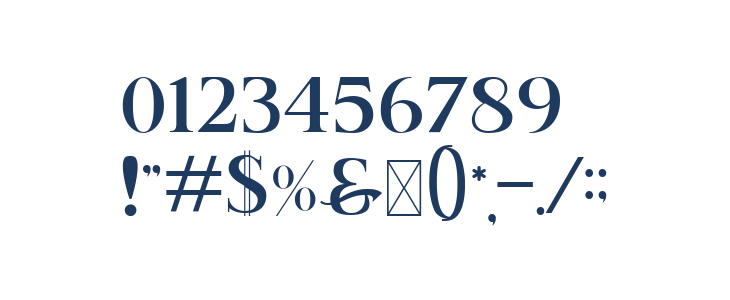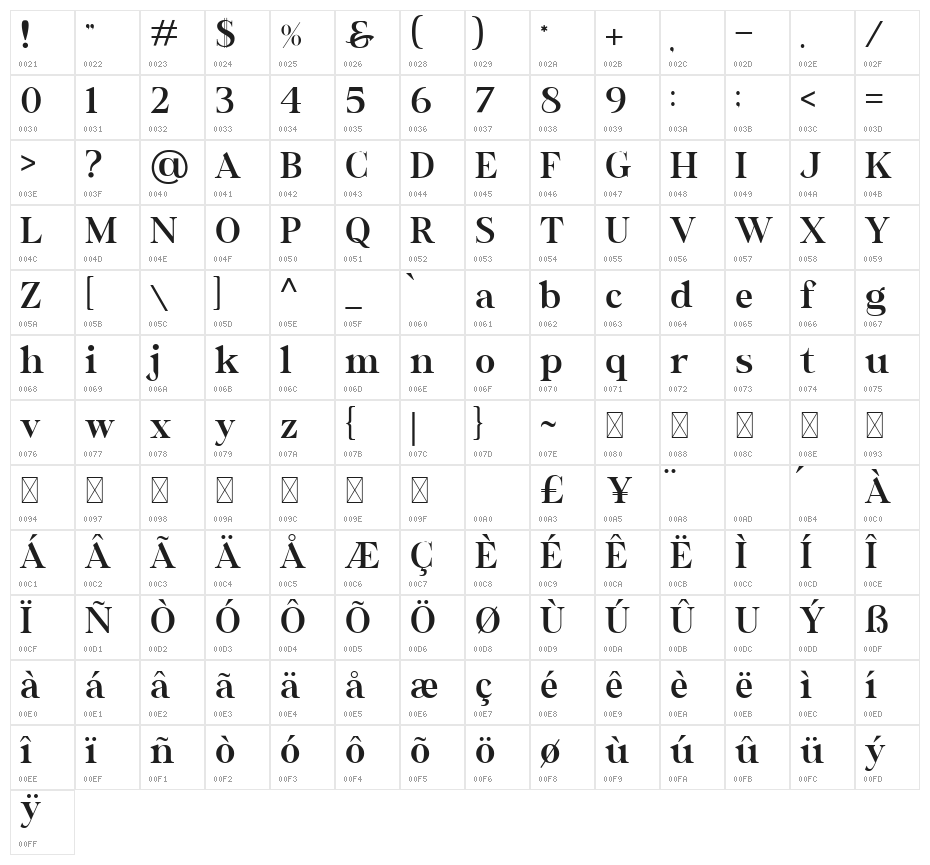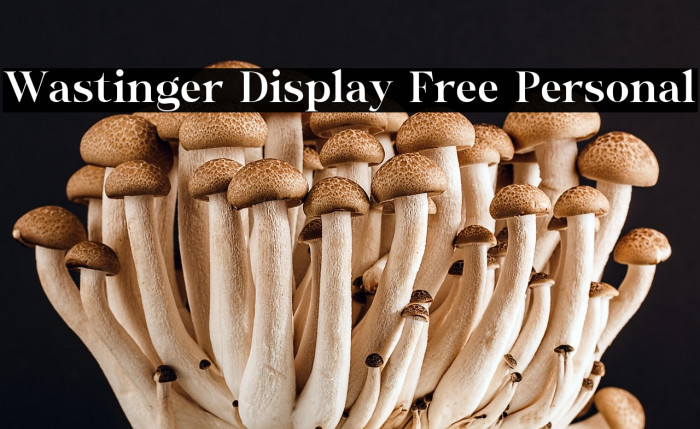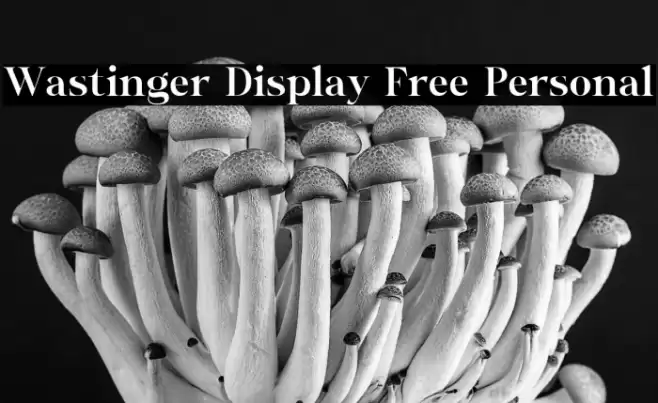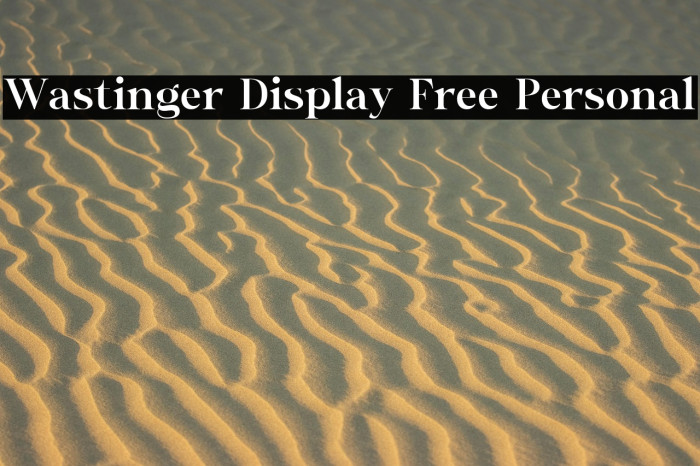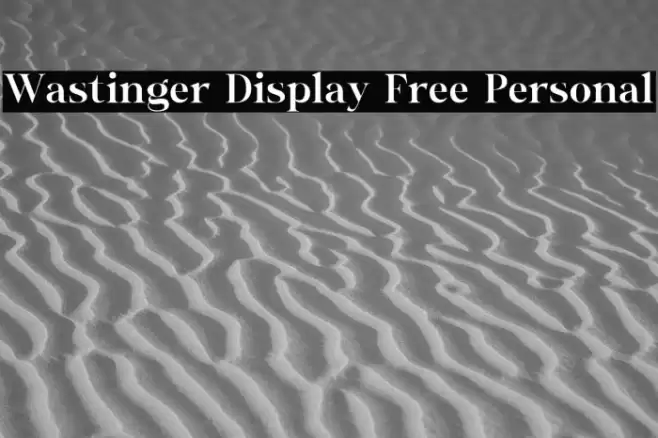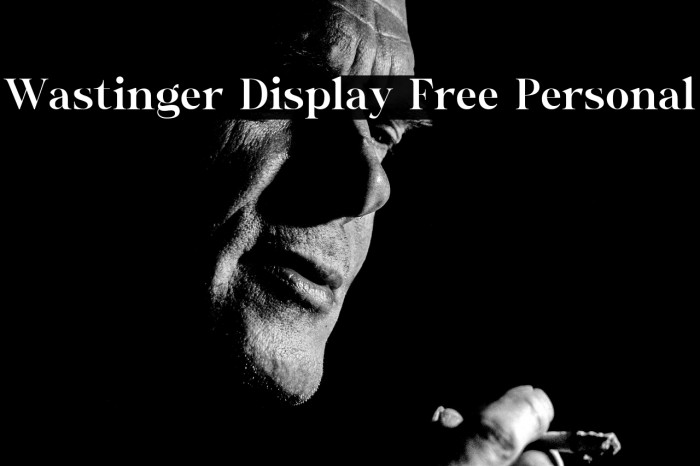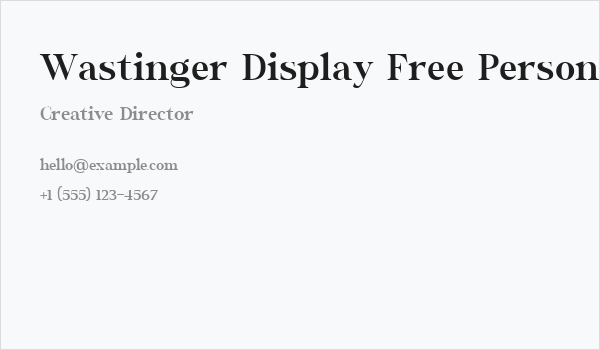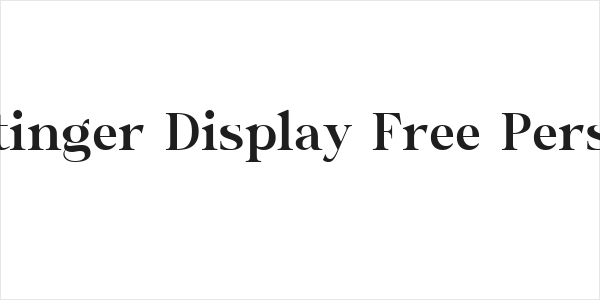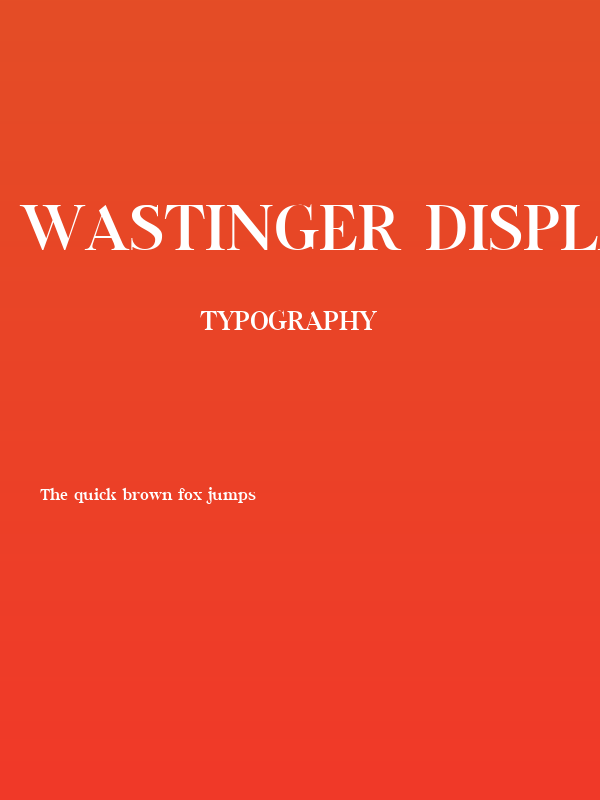
Wastinger Display Free Personal Font
Wastinger Display Free Personal Description
This font features a bold and elegant serif style with high contrast between thick and thin strokes. The uppercase letters are characterized by sharp, angular serifs, while the lowercase letters maintain a more rounded and softer appearance. The numerals are distinct and clear, with a classic touch that complements the overall design. Special characters are well-integrated, maintaining the font's cohesive aesthetic. This typeface exudes a sense of sophistication and tradition, making it suitable for formal and decorative purposes.
| Use Case | Headlines, Logos, Editorial design |
| Proposed Projects | Ideal for luxury branding, editorial design, book covers, and high-end packaging. |